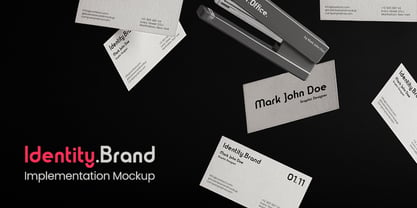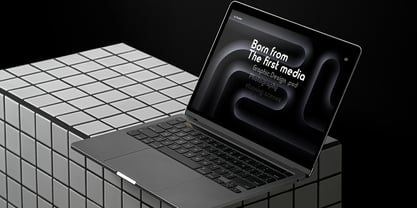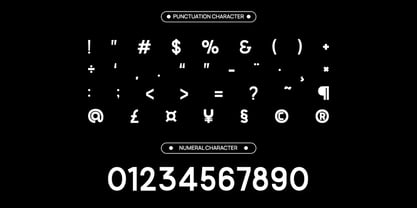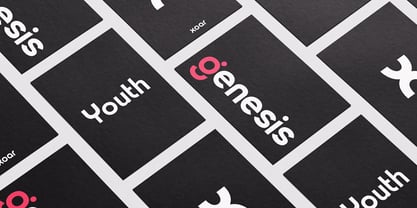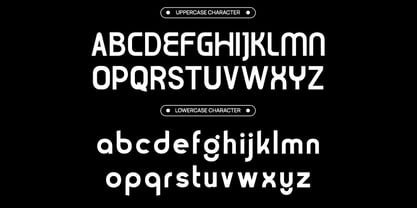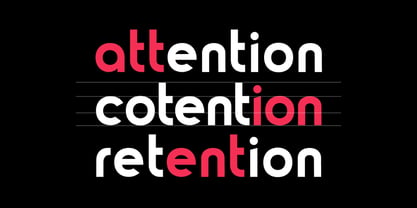
Yugo
by Vadova Std
Yugo is a modern rounded geometric sans serif typeface designed to deliver a clean, friendly, and contemporary visual identity. With its balanced geometric construction, smooth rounded corners, and bold character presence, Yugo creates a strong yet approachable typographic style perfect for modern design projects. Yugo is designed for modern visual identities and contemporary design projects. Its geometric construction and rounded forms make it ideal for branding systems, logo design, digital interfaces, posters, marketing materials, and social media graphics. The font works especially well in headlines and display typography where a bold, clean, and modern appearance is required.